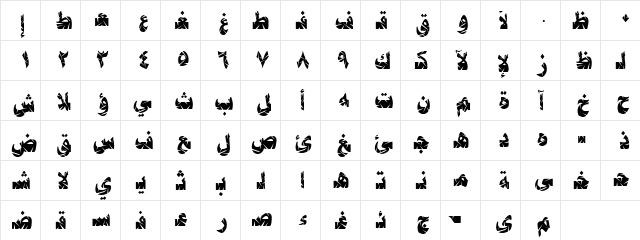
ALW Cool Jeddah Slit. Normal
Design Context for ALW Cool Jeddah Slit. Typeface
ALW Cool Jeddah Slit. is a composed and adaptable typeface that performs quietly and consistently across a wide range of design contexts.